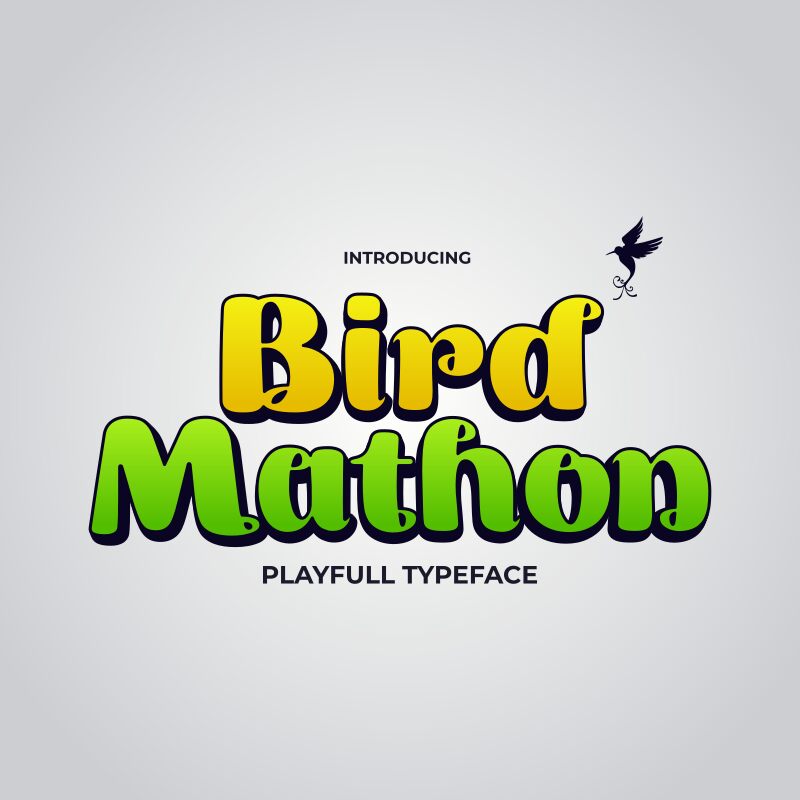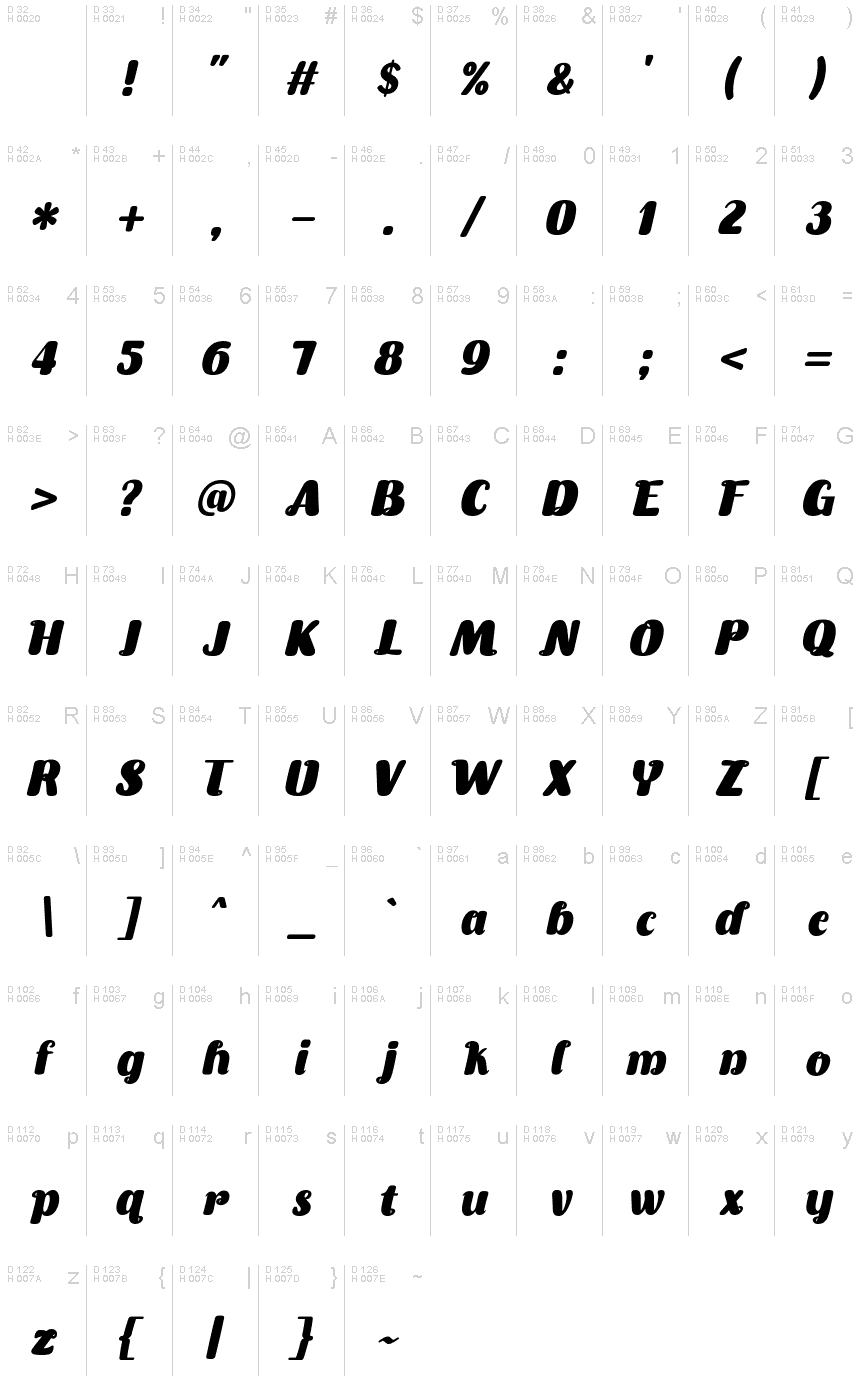
Birdmathon Italic
Birdmathon Italic is a display font from the Birdmathon font family, designed by Antropody Signature. With its bold weight and unique style, this font is sure to catch the eye and make a statement.
Birdmathon Italic is perfect for a variety of projects. Its strong presence makes it ideal for logo design, helping businesses create a memorable brand identity. Additionally, it can be used to add an artistic touch to greeting cards or packaging designs.
This font is also well-suited for creating impactful posters that demand attention. Its versatility extends to supporting multilingual characters and standard ligatures, ensuring seamless integration into diverse design projects. Available in both otf and ttf formats, Birdmathon Italic is ready to elevate your creative work with its distinct flair.